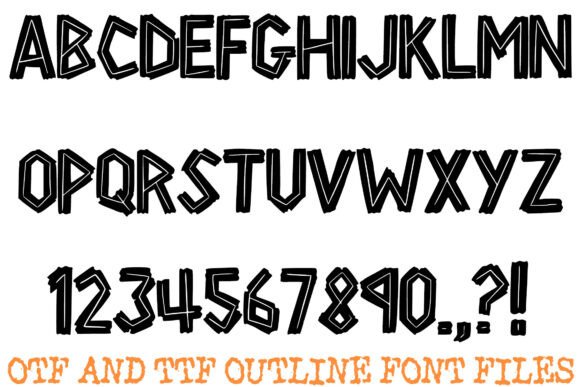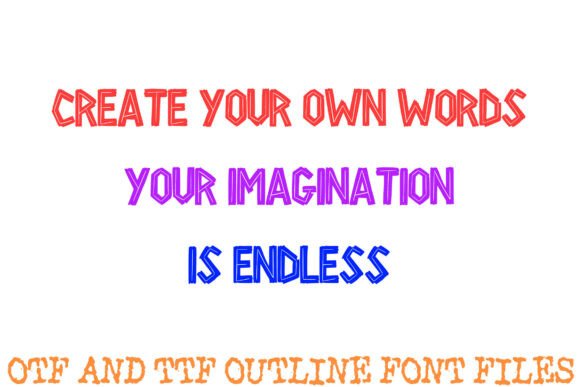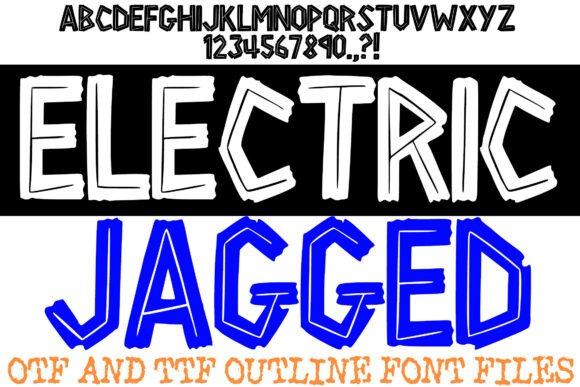
Ignite Your Creative Projects with the Electric Jagged Font
Are you looking for a font that can add a high-voltage energy to your designs? Look no further than the Electric Jagged Font! This hand-drawn display alphabet is perfect for designers and crafters who want to create bold, eye-catching graphics that scream with energy. With its sharp, zig-zagging edges and unique double-outline effect, this font is sure to take your creative projects to the next level.
The Ultimate Choice for High-Impact Branding and Design
The Electric Jagged Font is the ultimate choice for high-impact branding, gaming graphics, edgy streetwear, and modern posters that need to make a statement. Its bold, vibrating characters are defined by sharp, zig-zagging edges that give your text a sense of rapid movement and raw power. Whether you’re designing for an extreme sports event, a gritty graphic novel, or eye-catching social media content, this font delivers a professional, electrified look that demands attention.
What Makes the Electric Jagged Font So Unique?
So, what makes the Electric Jagged Font so unique? Here are just a few features that set it apart from other fonts:
- Double-Outline Detail: Every character features a distinct offset outline that creates a vibrating, 3D “static” effect. This double-outline detail gives your text a sense of depth and dimensionality that’s sure to grab attention.
- Sharp, Energetic Edges: The jagged, lightning-bolt corners of the Electric Jagged Font provide a high-energy, aggressive aesthetic that’s perfect for designs that need to pack a punch.
- Hand-Drawn Grit: This font captures the authentic, non-uniform feel of a sketchbook or a hand-drawn design. The hand-drawn grit of the Electric Jagged Font gives your text a sense of raw energy and creativity.
Why Your Designs Will Buzz with the Electric Jagged Font
When you use the Electric Jagged Font in your designs, you can expect a few things:
- Attention-Grabbing: The bold, vibrating characters of the Electric Jagged Font are sure to grab attention and draw the eye.
- High-Energy Aesthetic: The sharp, energetic edges and double-outline detail of this font create a high-energy aesthetic that’s perfect for designs that need to make a statement.
- Professional Look: Despite its bold, edgy aesthetic, the Electric Jagged Font has a professional look that’s perfect for designs that need to convey a sense of expertise and authority.
The Electric Jagged Font is perfect for designers and crafters who want to add a high-voltage energy to their creative projects. Whether you’re designing for print or digital media, this font is sure to make a statement. Here are just a few ways you can use the Electric Jagged Font in your designs:
- Branding: Use the Electric Jagged Font to create bold, eye-catching logos and branding materials that scream with energy.
- Graphic Novels: Add a gritty, edgy feel to your graphic novels with the Electric Jagged Font.
- Social Media Content: Use the Electric Jagged Font to create eye-catching social media content that grabs attention and drives engagement.
- Streetwear: Add a bold, edgy aesthetic to your streetwear designs with the Electric Jagged Font.
In conclusion, the Electric Jagged Font is a powerful, high-energy font that’s perfect for designers and crafters who want to add a bold, edgy aesthetic to their creative projects. With its sharp, zig-zagging edges and unique double-outline effect, this font is sure to make a statement. Whether you’re designing for branding, graphic novels, social media content, or streetwear, the Electric Jagged Font is the ultimate choice for high-impact designs that demand attention.